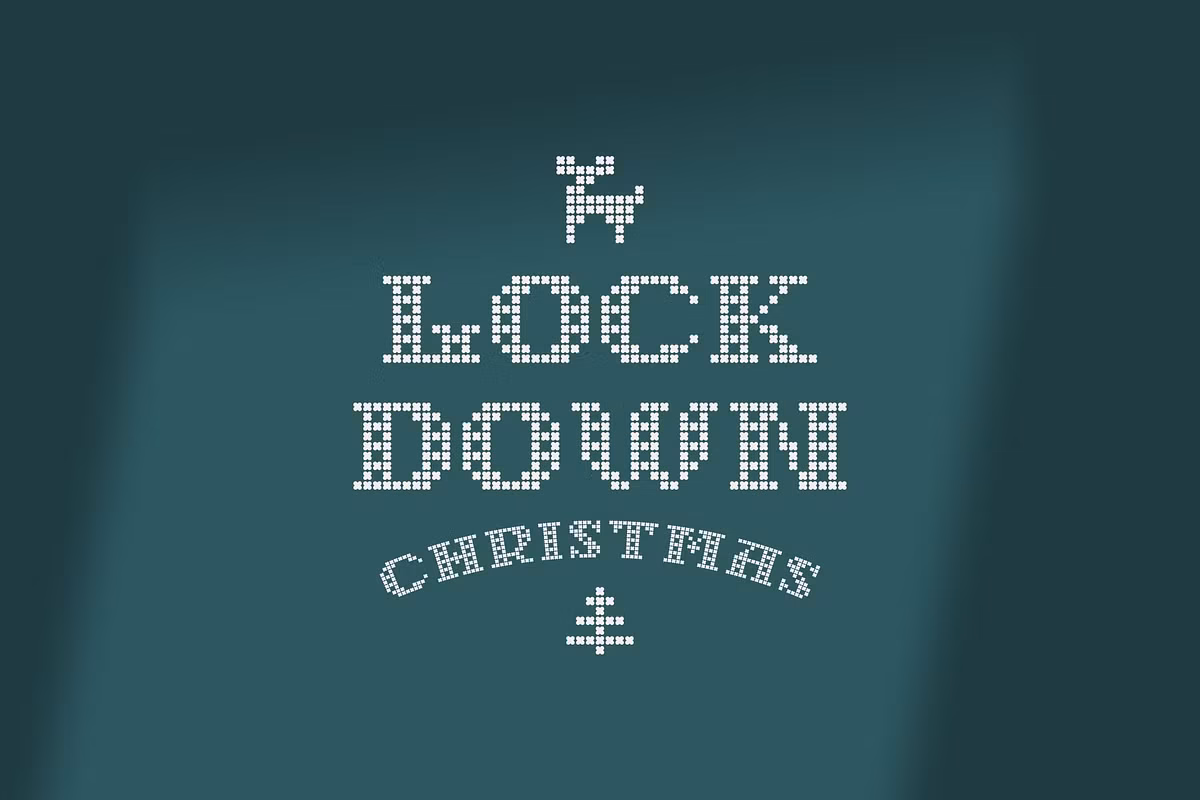
Lockdown Christmas Font Free Download is a cozy, festive typeface inspired by knitted textures, perfect for holiday-themed designs. With its warm, textured strokes resembling knitted fabric, this font is ideal for creating Christmas cards, gift tags, holiday invitations, seasonal branding, and winter-themed designs that need a cozy, handmade touch.
Lockdown Christmas Font Free Download brings the spirit of winter and holiday warmth to your typography with its charming, knitted appearance. Whether you're designing for a Christmas market, a cozy brand, or creating festive social media posts, this font adds a unique and personalized element to your work.
The knitted texture gives each letter a homely, soft quality that stands out in both large titles and small text. It pairs beautifully with other holiday-inspired graphics or simple sans-serifs to create a balanced, seasonal look.